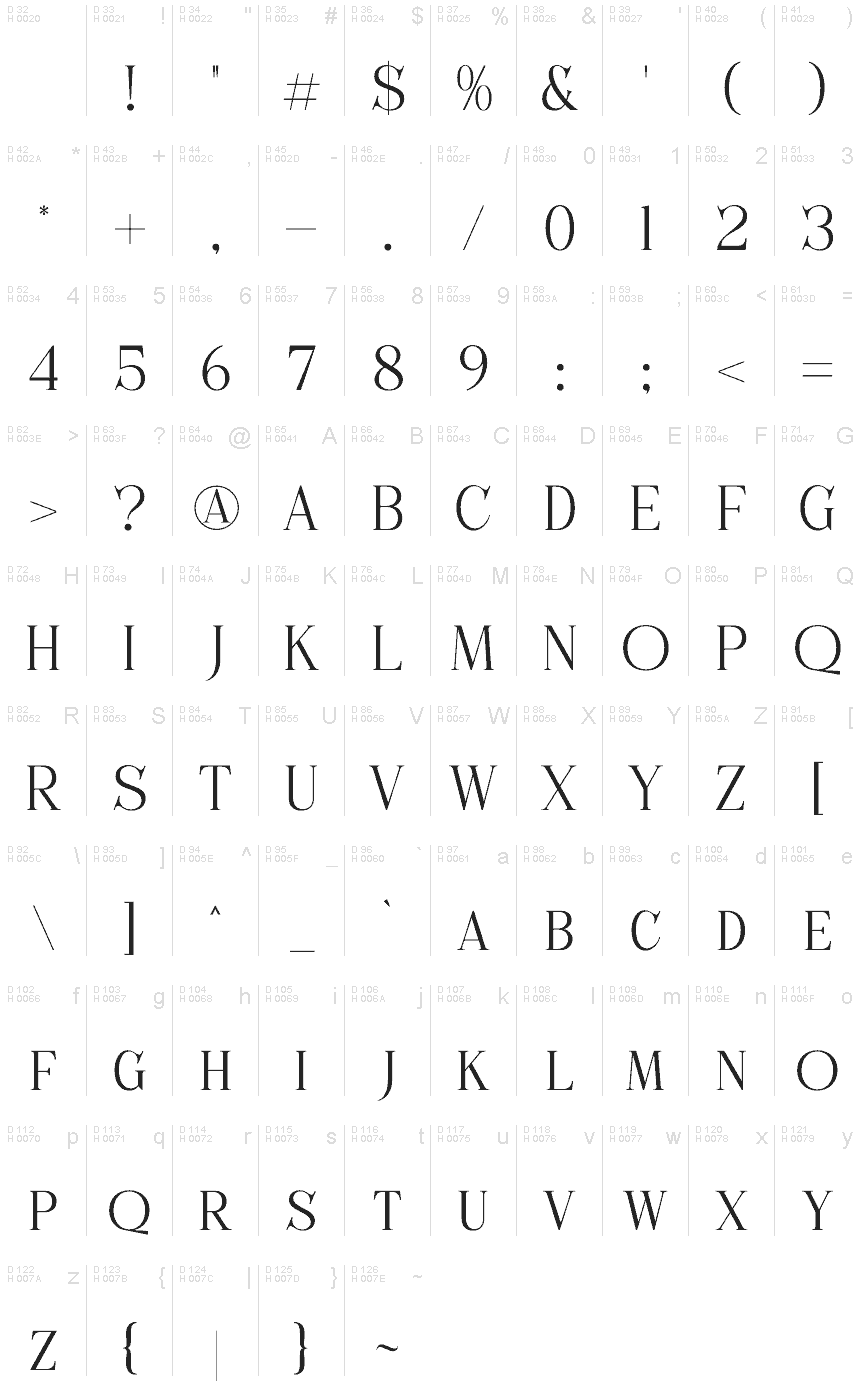
Holage
Holage font by Storytype Studio is a refined classic serif font that combines elegance with sophistication. Featuring traditional elements, it instantly conveys a formal impression with its sleek design and harmonious details.
Use Holage for branding, logos, invitation cards, certificates, blogs, web typography, headlines in magazines and newspapers, packaging designs for high-end products such as luxury cosmetics and jewelry boxes.